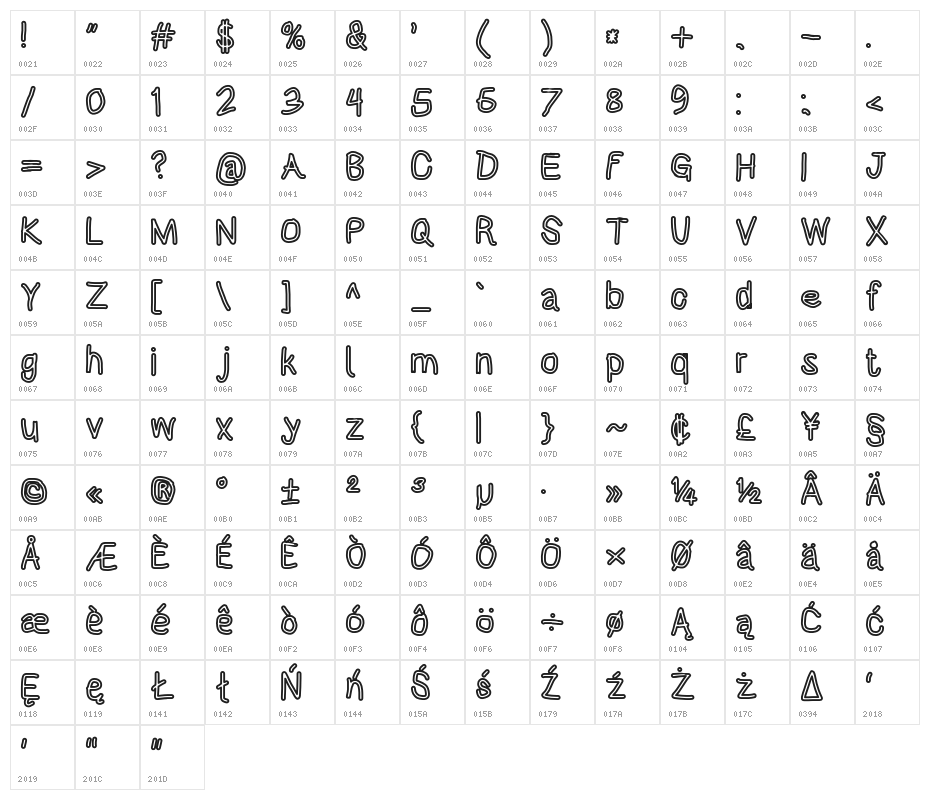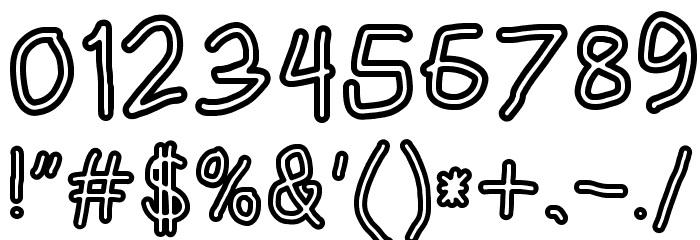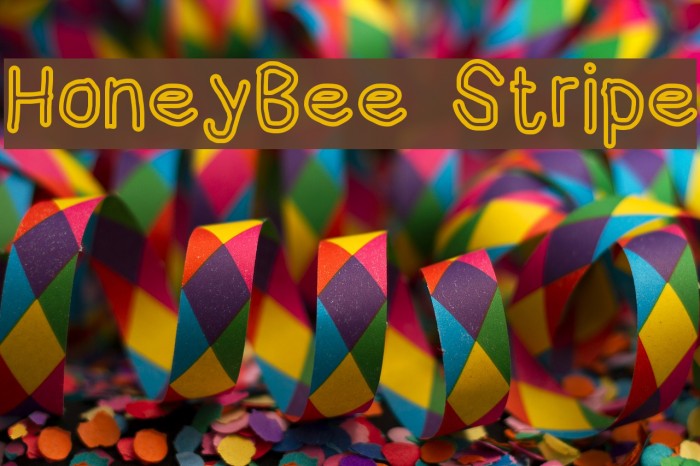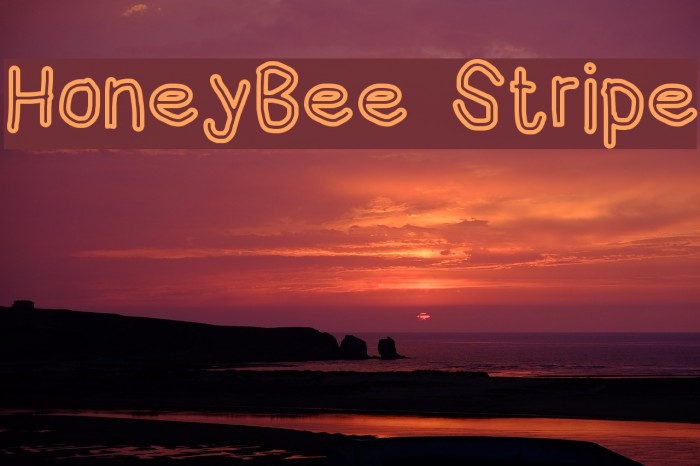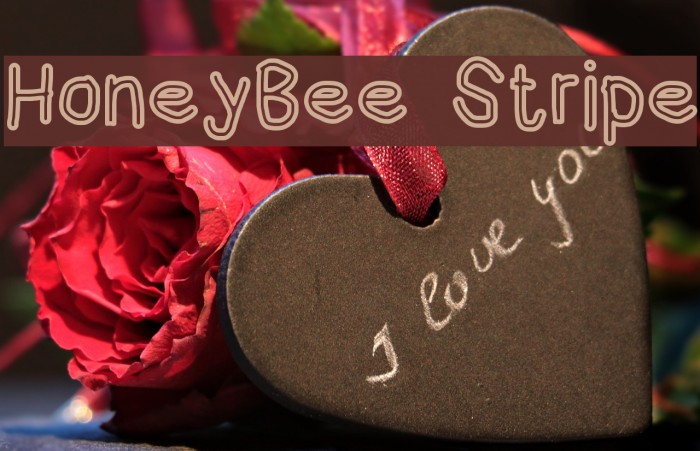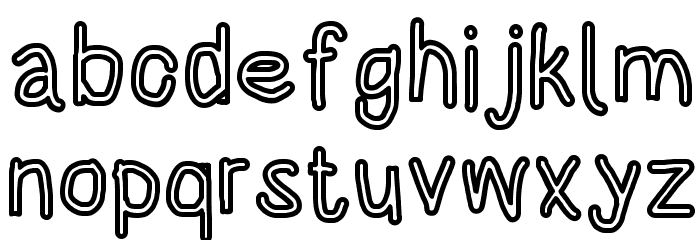
HoneyBee Stripe Font
HoneyBee Stripe Description
This playful and whimsical font features a bold, outlined style with a hand-drawn appearance. The characters have a consistent thickness, giving them a cartoonish and friendly vibe. The uppercase and lowercase letters are well-balanced, with rounded edges that add to the approachable feel. Numbers and special characters maintain the same playful aesthetic, making this font versatile for various creative projects. The overall design is both fun and legible, making it suitable for children's materials, casual branding, or any project that requires a lighthearted touch.
| Overall Style | Playful, Whimsical |
| Proposed Projects | Ideal for children's books, playful branding, greeting cards, and casual posters. |